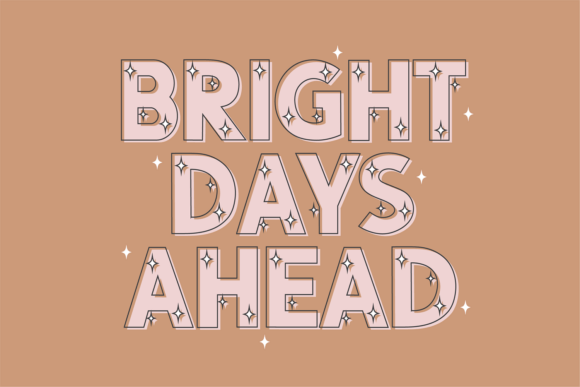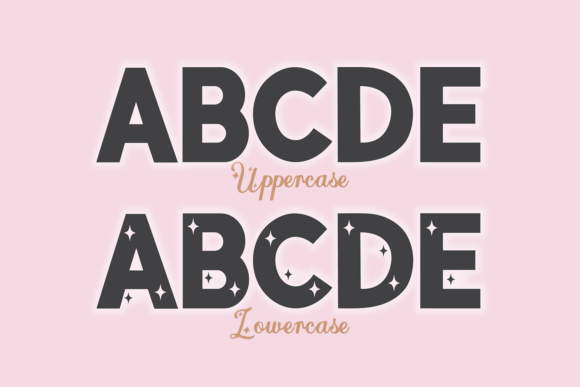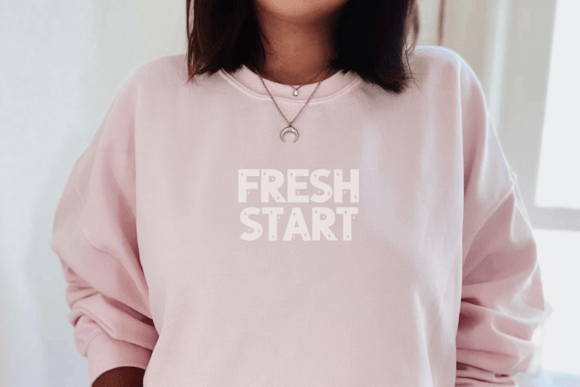
Glisten Font: Add a Touch of Sparkle to Your Designs
Are you looking for a font that can add a touch of magic to your designs? Look no further than the Glisten Font! This modern, stylish display font is perfect for making your projects shine, whether it’s for Christmas, New Year, birthdays, or any other special occasion.
What is Glisten Font?
Glisten is a bold, sparkling display font that is designed to make a statement. Its unique feature is the addition of stars to its lowercase characters, giving it a festive and celebratory feel. The uppercase characters, on the other hand, are plain block letters without the stars, providing a nice contrast and making it perfect for use in a variety of design projects.
Features of Glisten Font
- Uppercase and Lowercase Characters: The font features both uppercase and lowercase characters, with the lowercase letters adorned with stars for a festive touch.
- All Caps Glyphs: The font includes all caps glyphs, making it perfect for use in titles, headings, and other display text.
- Numbers and Punctuation Marks: The font also includes numbers and punctuation marks, making it a comprehensive and versatile font for all your design needs.
- Bold Display Font: Glisten is a bold display font that is perfect for making a statement in your designs.
Use Cases for Glisten Font
Glisten Font is perfect for a variety of design projects, including:
- Social Media Graphics: Add a touch of sparkle to your social media graphics, including Facebook posts, Instagram stories, and Twitter headers.
- Crafty Projects: Use Glisten Font to add a personal touch to your crafty projects, such as handmade cards, gift tags, and scrapbooking.
- Branding: Use Glisten Font to create bold and eye-catching branding materials, such as logos, business cards, and brochures.
- Invitations: Make your invitations stand out with Glisten Font, perfect for birthdays, weddings, and other special occasions.
- Decor: Use Glisten Font to add a touch of personality to your decor, including wall art, signs, and other home decor projects.
Why Choose Glisten Font?
There are many reasons why Glisten Font stands out from the rest:
- Unique and Festive: The addition of stars to the lowercase characters makes Glisten Font truly unique and festive.
- Versatile: Glisten Font is perfect for a variety of design projects, from social media graphics to crafty projects.
- Easy to Read: Despite its bold and decorative nature, Glisten Font is easy to read and understand.
- High-Quality: Glisten Font is a high-quality font that is designed to deliver exceptional results.
| Font Name | Glisten Font |
| Author | blushfontco |
In conclusion, Glisten Font is a sparkling modern stylish display font that is perfect for adding a touch of magic to your designs. Its unique features, versatility, and high-quality design make it a must-have for designers and crafters. Whether you’re looking to create social media graphics, crafty projects, or branding materials, Glisten Font is the perfect choice.